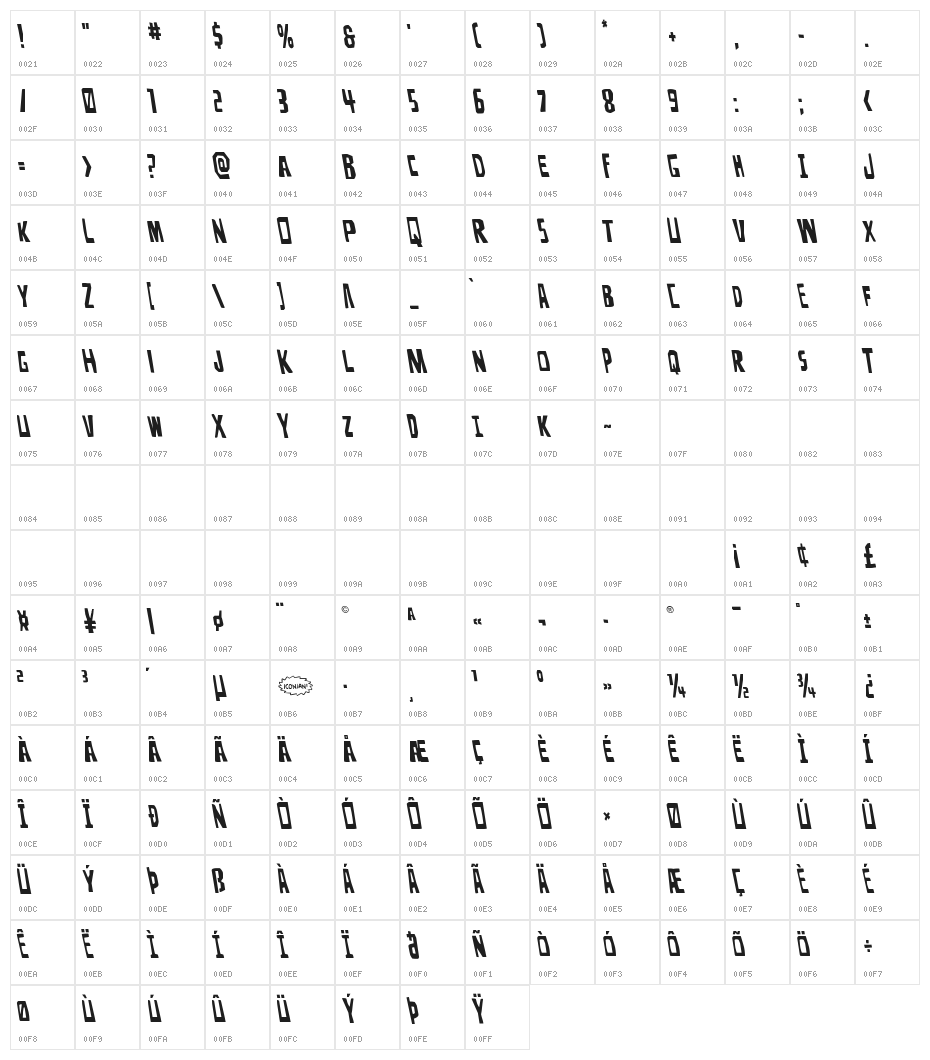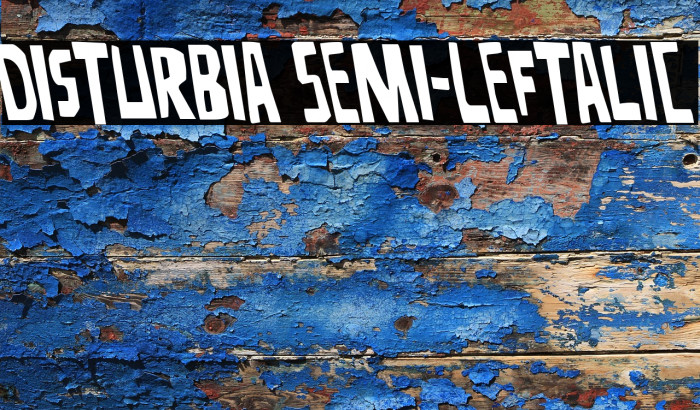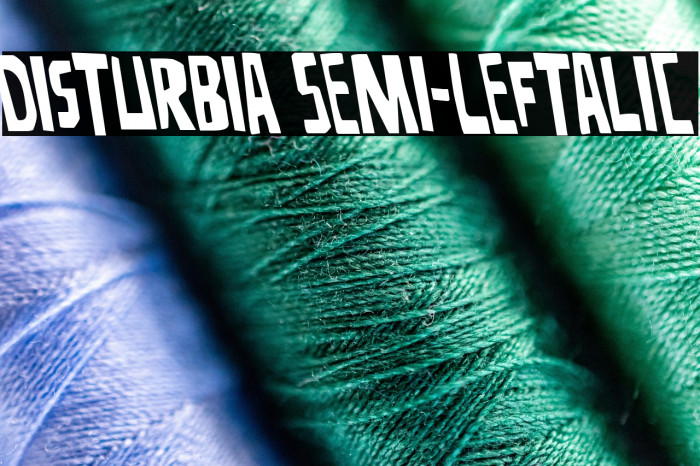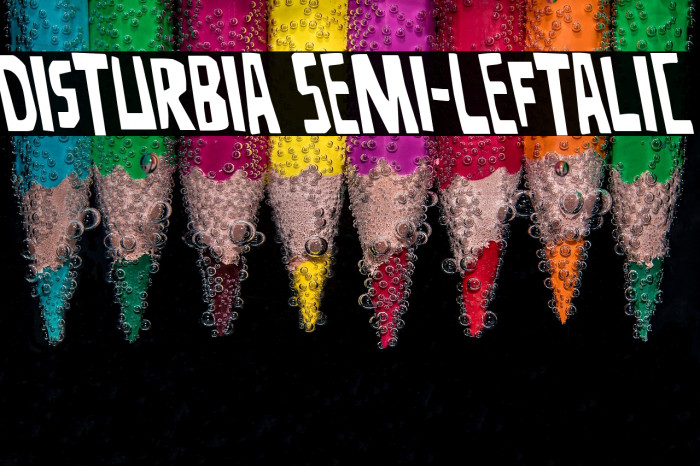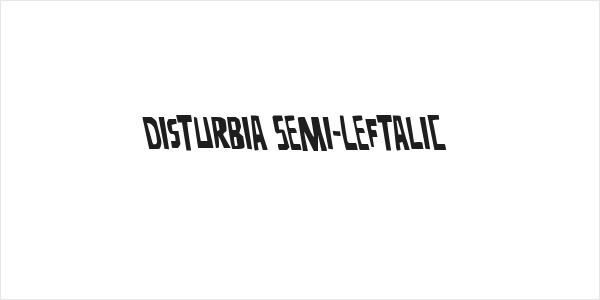
Disturbia Semi-Leftalic Font
Disturbia Semi-Leftalic Description
This font features a bold and dynamic style with a distinct slant to the left, giving it a unique and edgy appearance. The characters are robust and slightly irregular, adding a sense of movement and energy. The uppercase and lowercase letters maintain a consistent height, while the numbers and special characters are designed to complement the overall aesthetic. The font's boldness and angular design make it stand out, ideal for projects that require a strong visual impact.